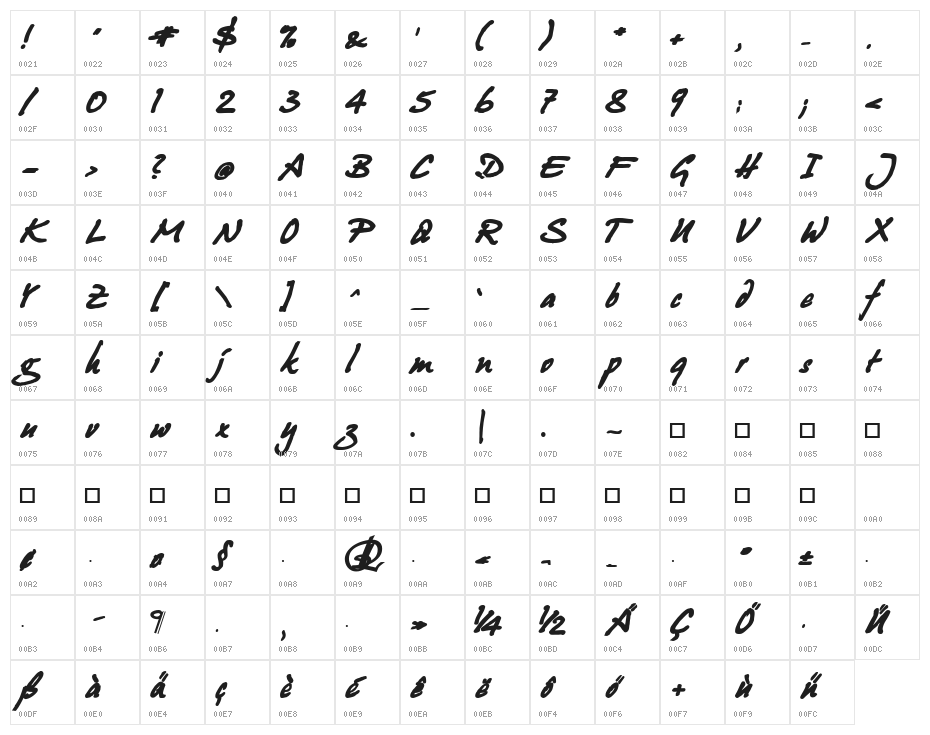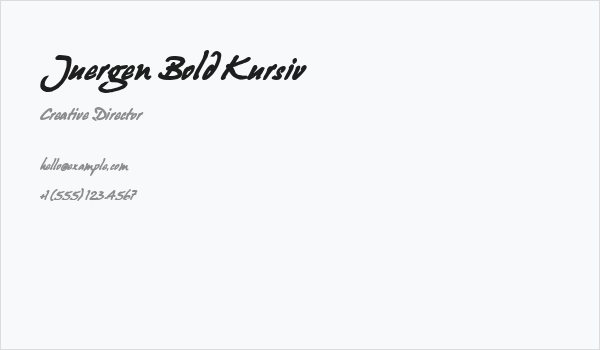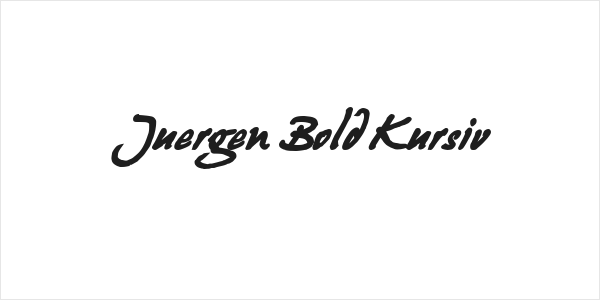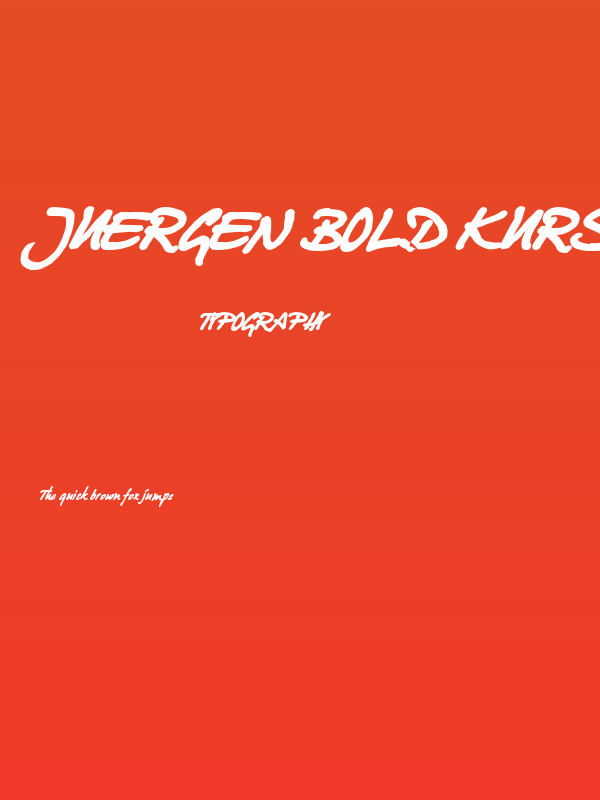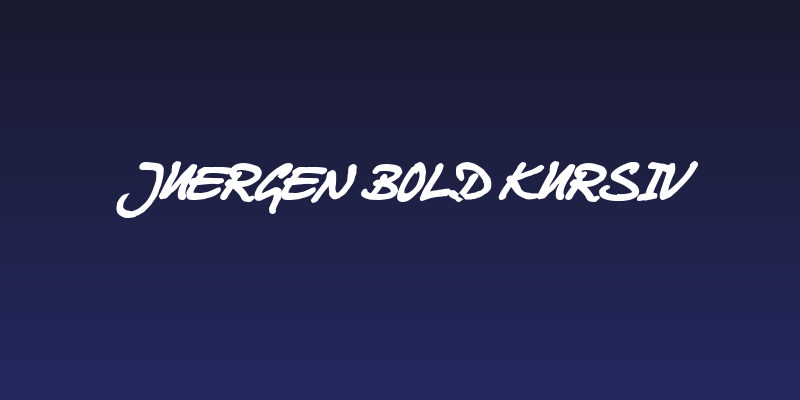
Juergen Bold Kursiv Font
Juergen Bold Kursiv Description
This font features a bold and dynamic cursive style, characterized by its fluid and expressive strokes. The letters are connected, giving it a handwritten appearance that is both elegant and energetic. The uppercase letters are slightly more angular, while the lowercase letters maintain a smooth, flowing quality. The numbers and special characters are consistent with the overall style, ensuring a cohesive look across all text. The font's boldness makes it stand out, while the cursive nature adds a touch of sophistication and creativity.
| Use Case | Logos, Invitations, Artistic Posters |
| Proposed Projects | Ideal for creative projects such as logo design, branding, invitations, and artistic posters where a personal touch is desired. |